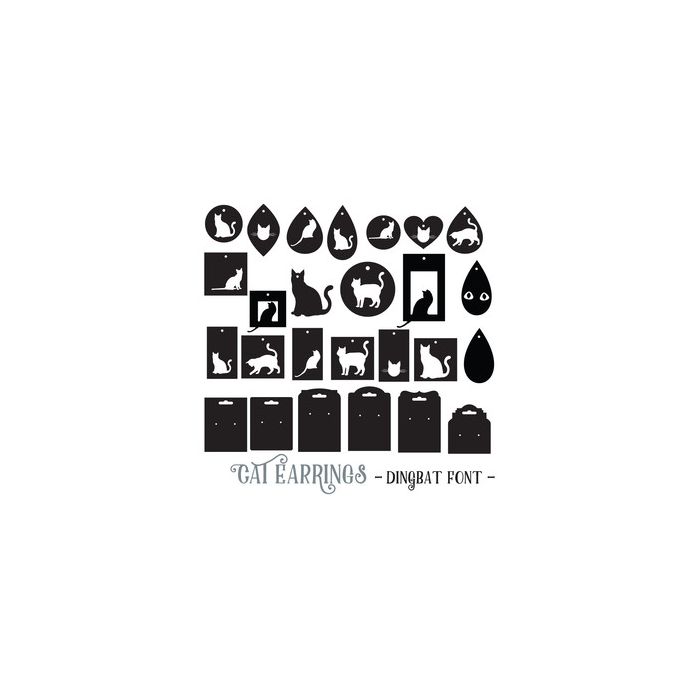
cat earrings dingbat font
Cat Halloween Earrings dingbat font. With single and layered earrings embellished with and backing cards to create your own unique jewellery!